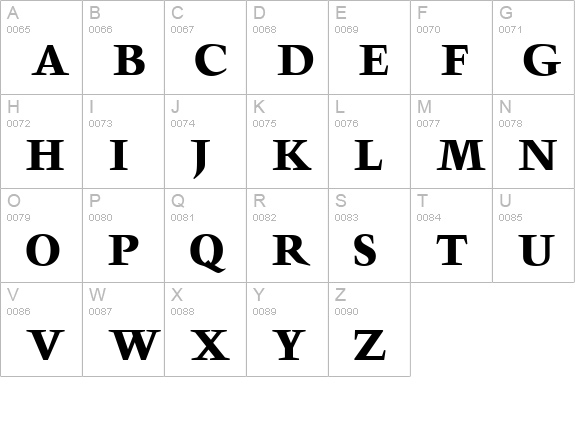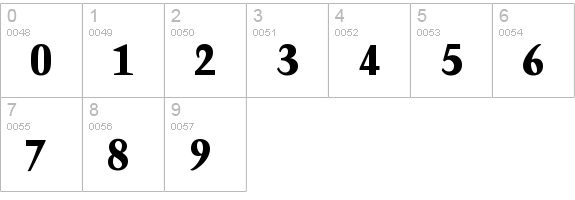
Triumph Bold is a strong, high-contrast variant in the Triumph typeface family \xE2\x80\x94 well suited to headlines, attention-grabbing titles, and strong calls-to-action.
Introducing Triumph Bold, a typeface that exudes confidence and strength in every letter. This font is bold, commanding attention with its powerful presence and striking design. Triumph Bold is the perfect choice for those seeking to make a bold statement, whether it be in branding, advertising, or graphic design. With its clean lines and well-defined curves, Triumph Bold effortlessly captures attention and leaves a lasting impression. Its versatility allows it to be used in a variety of contexts, from headlines and titles to logos and packaging. But what sets Triumph Bold apart is not just its aesthetics—it's also the fact that it is freely available to download at FontsMarket.com. That's right, this exceptional font can be yours with just a few clicks, providing you with the opportunity to elevate your projects without any additional cost. Whether you're a professional designer or an aspiring creative, Triumph Bold offers an incredible value proposition. Its bold and powerful nature combined with its accessibility make it a must-have in your font collection. So don't miss out on this fantastic opportunity to enhance your designs with Triumph Bold, now available for free at FontsMarket.com.